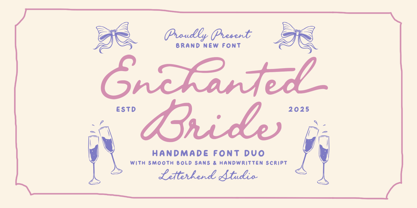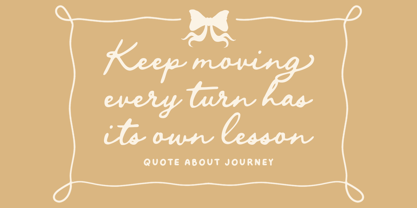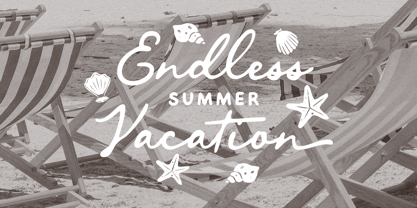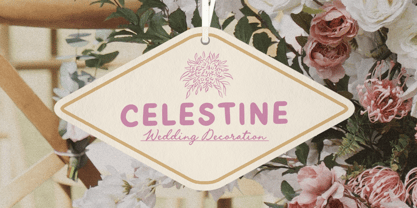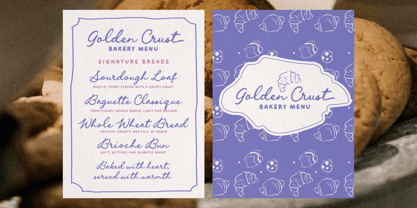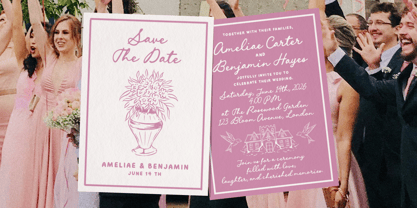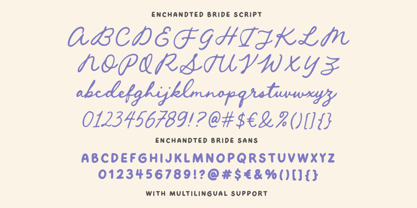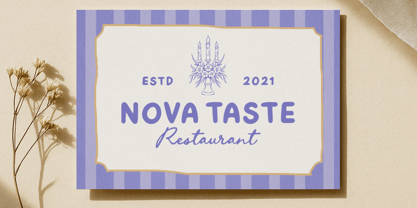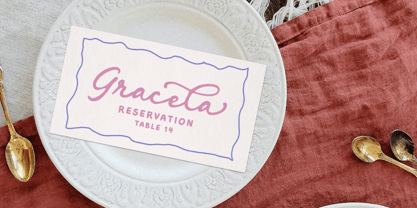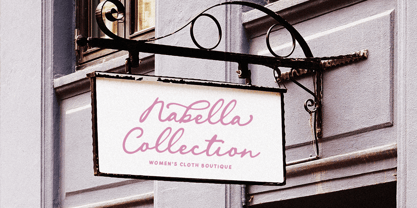
Enchanted Bride
by Letterhend
The Enchanted Bride Font Family was designed by Hendry Juanda and published by Letterhend. Enchanted Bride contains 2 styles and family package options. More about this family
Enchanted Bride is a charming handmade font duo that blends a smooth bold sans with an elegant handwritten script. Its graceful curves and soft strokes create a romantic, timeless feel—perfect for invitations, branding, stationery, and any project that celebrates love and beauty. The duo pairing offers balance between sophistication and warmth, giving every design a touch of elegance and enchantment that feels both modern and heartfelt. Features : Uppercase & lowercase Numbers and punctuation Alternates & Ligatures Multilingual Support PUA encoded